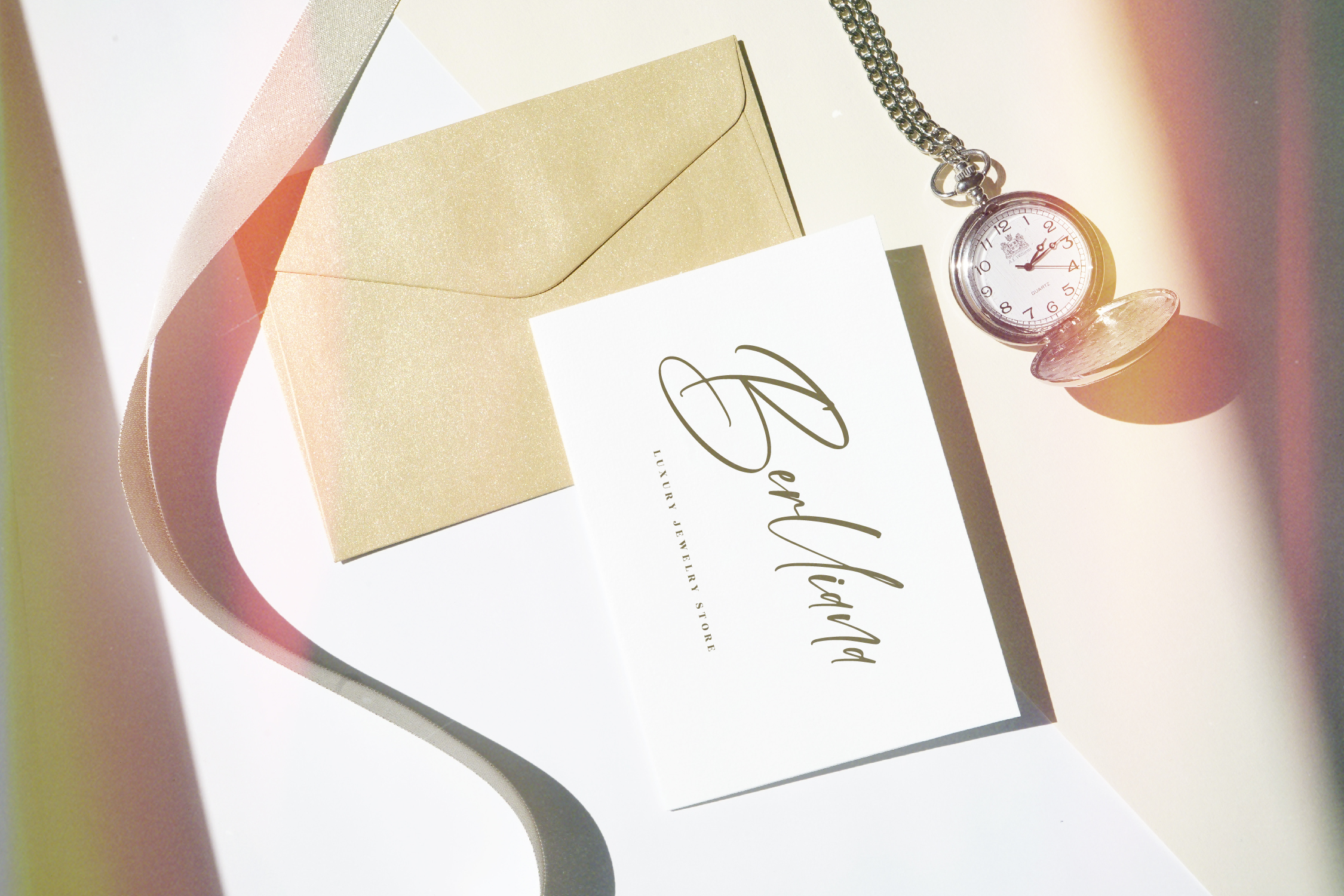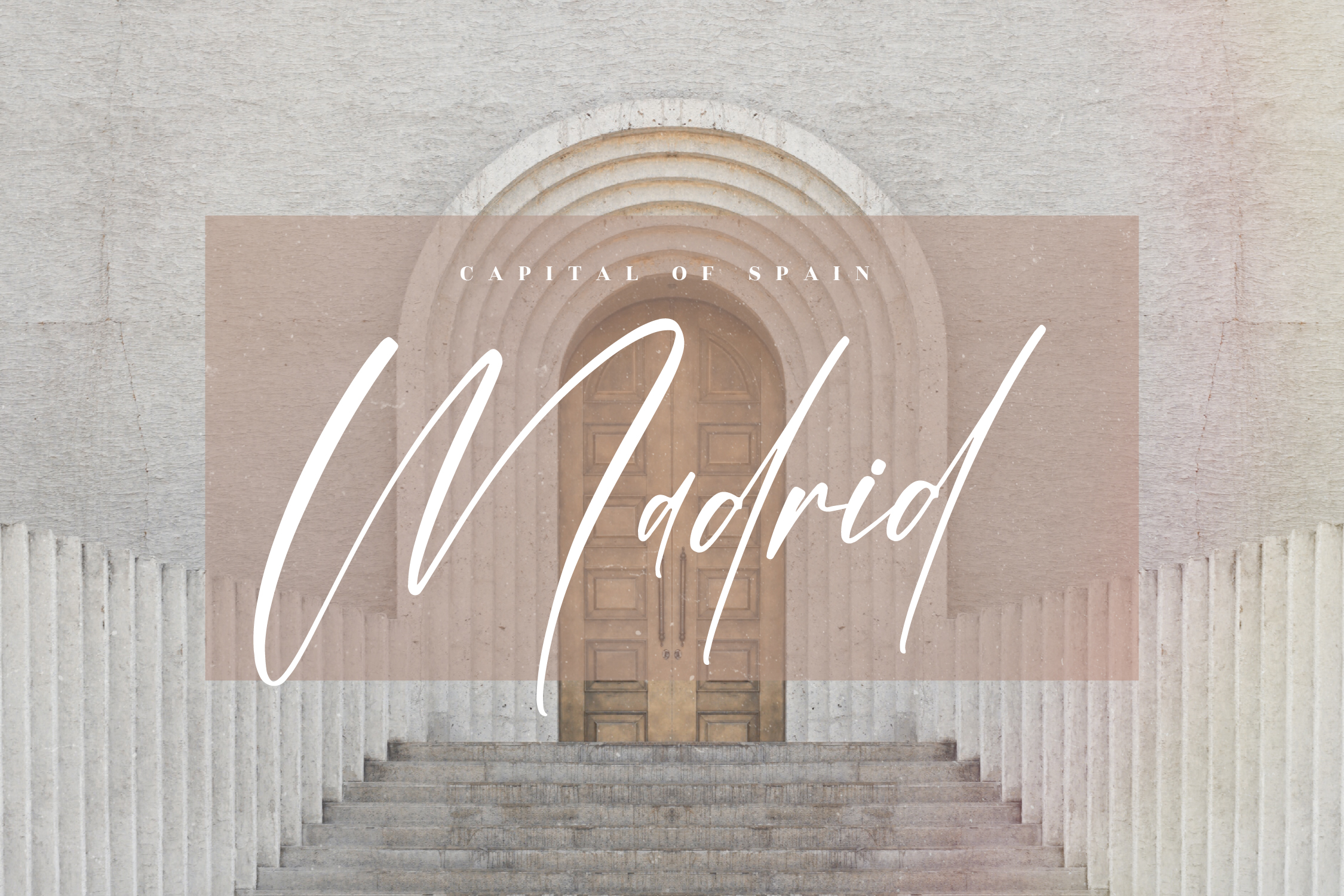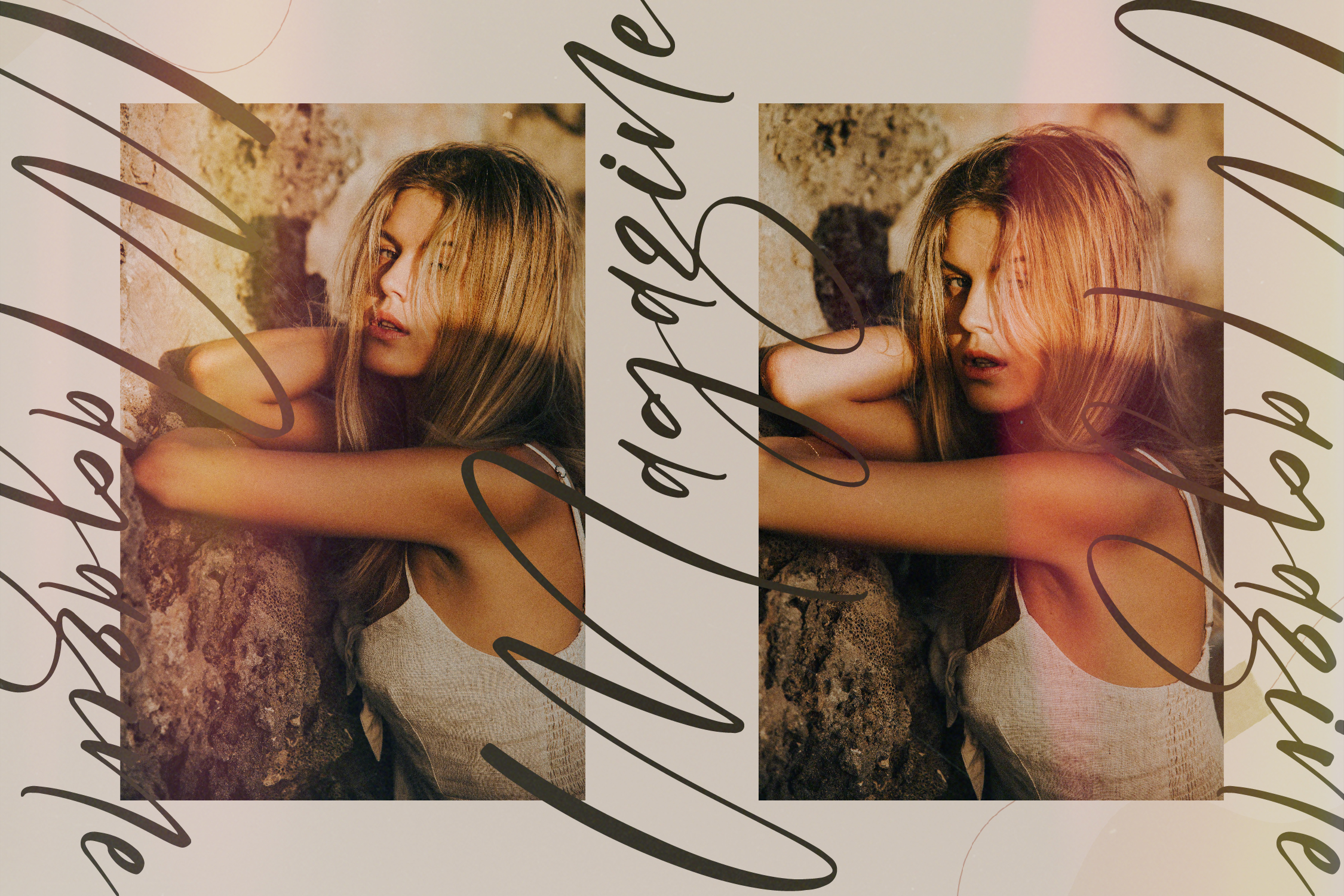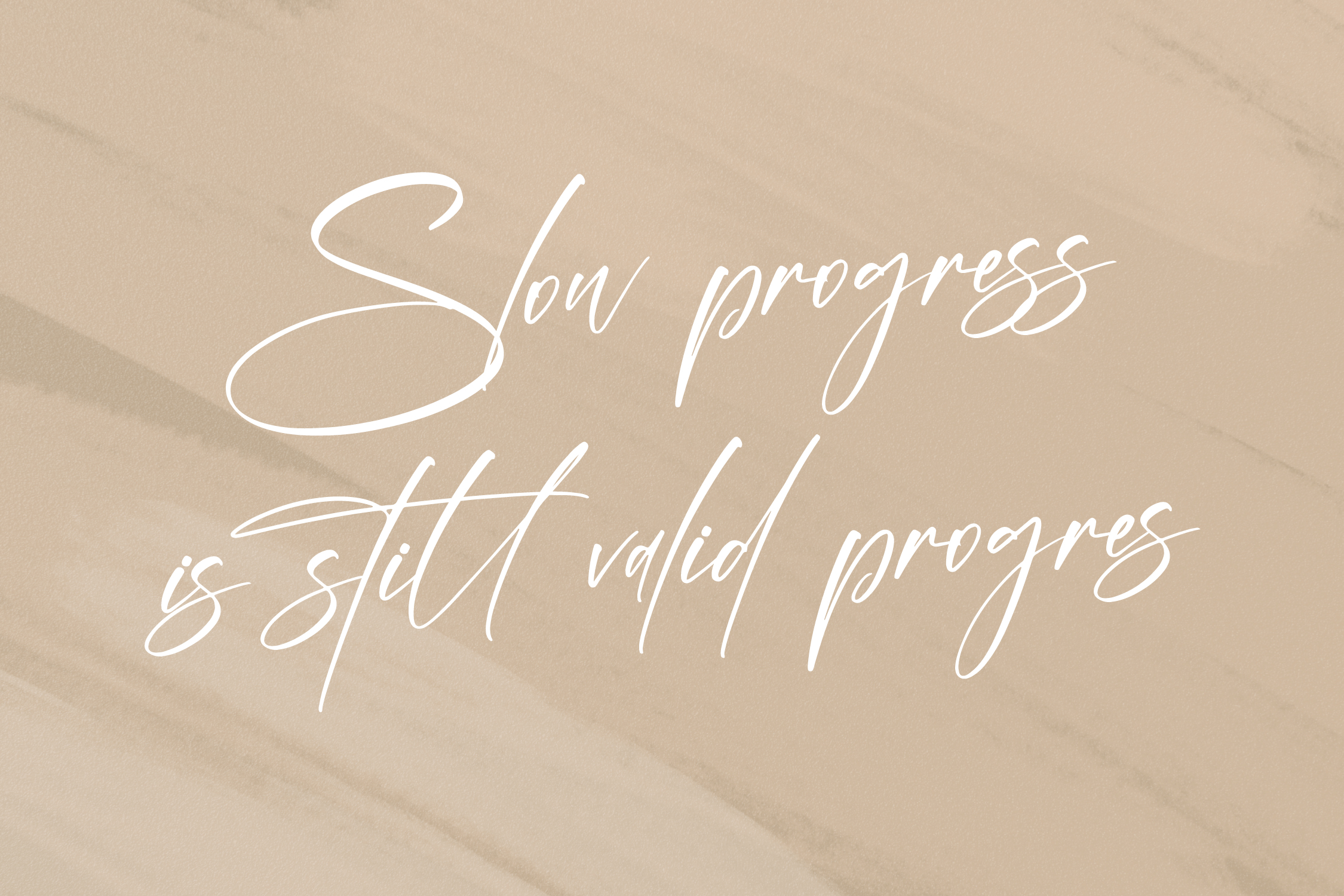
Bermingham Diamond Font
Bermingham Diamond Script Font
This is a beautiful script font, suitable for any projects such as: logos, branding projects, homeware designs, product packaging, mugs, quotes, posters, shopping bags, t-shirts, book covers, name card, invitation cards, greeting cards, label, photography, watermark, special events, and all your other lovely projects that need a beautiful script taste.